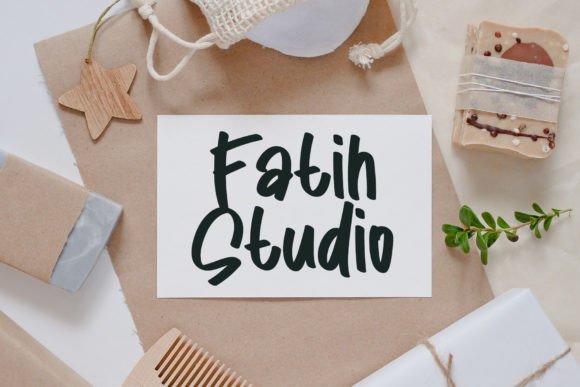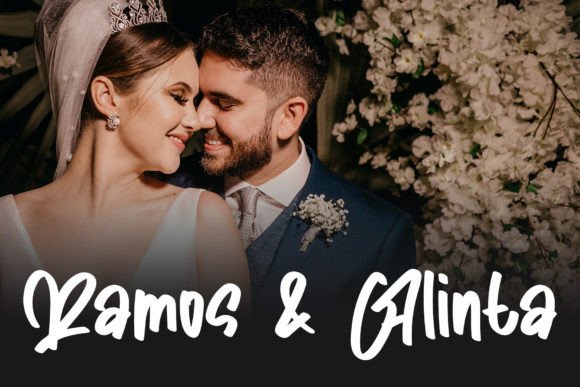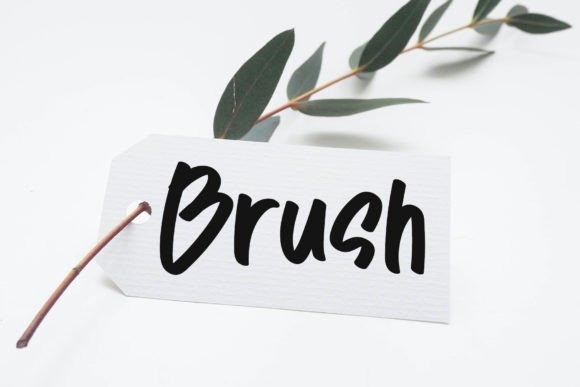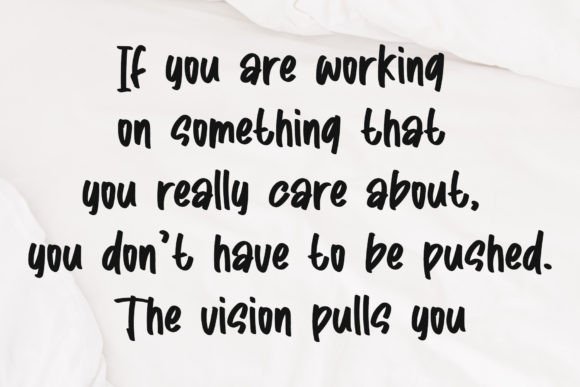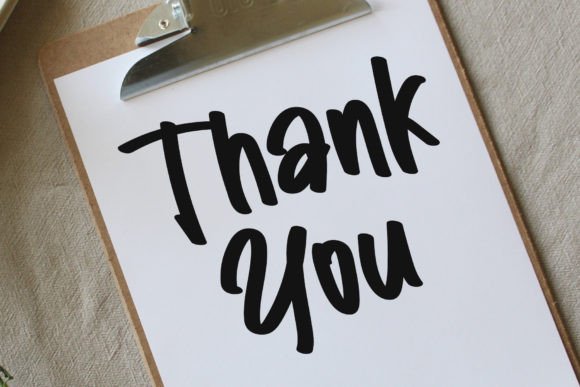
Introduction to Kestrel Font Font
Fonts play a crucial role in design, and the Kestrel Font font is a typeface that brings both character and versatility to any project. Whether you’re working on a branding project, a website, or a print design, the Kestrel Font font offers a unique style that can elevate your work.
Kestrel is a characterful and cute handwritten font.
This font dedicated to awesome celebration days is perfect for writing wedding invitations, cards, or any other design that requires a soft, characterful touch This font is PUA encoded which means you can easily access all the glyphs and ligatures.
The Kestrel Font font is more than just a typeface – it’s a design tool that helps you communicate your message with style and clarity. Its unique character set and versatile design make it suitable for a wide range of applications, from elegant invitations to bold headlines.
With its carefully crafted letterforms and balanced proportions, the Kestrel Font font ensures readability and visual appeal across all mediums.
The Kestrel Font font stands out with its unique design, exceptional readability, and versatility across various design applications.